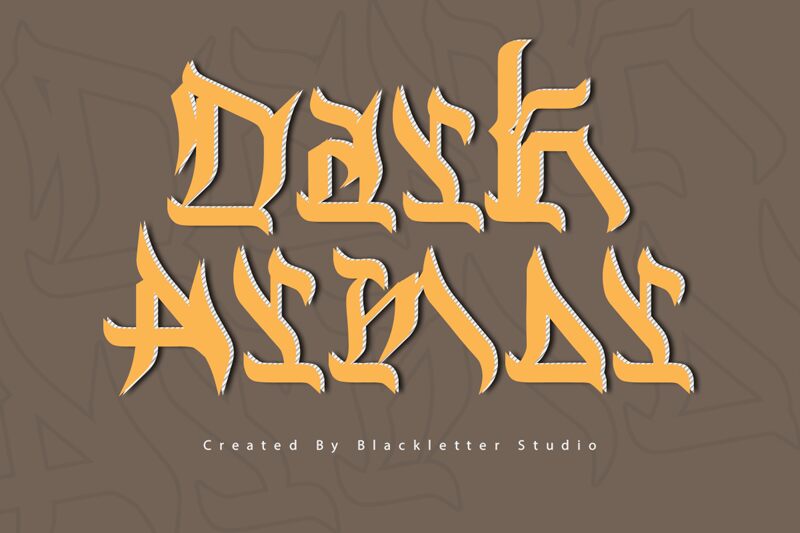
Dark Armor, designed by Blackletter Studio, is a modern gothic font that will add a touch of edgy sophistication to any project. With its semi-light weight, it's perfect for titles and headings that require a bold statement without overwhelming the page. This font is suitable for various projects like album covers, movie posters, fashion magazines, and even websites or blogs that want to stand out from the crowd. Its sleek and contemporary appearance pairs well with minimalist design elements or can be used to create a dark and moody aesthetic. Dare to be different with Dark Armor - make your words speak volumes!
Dark Armor